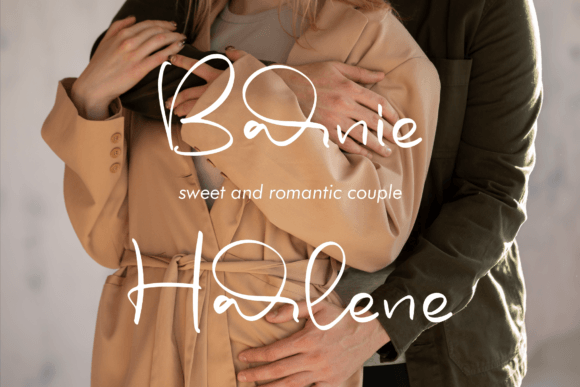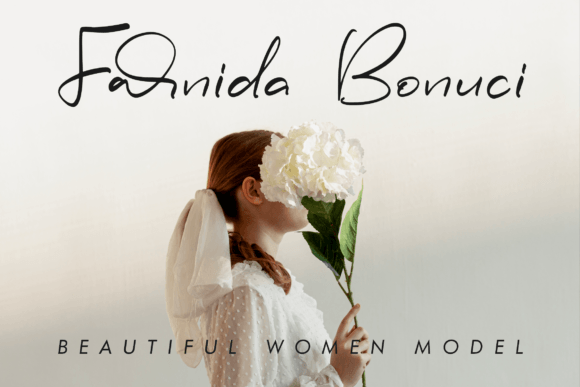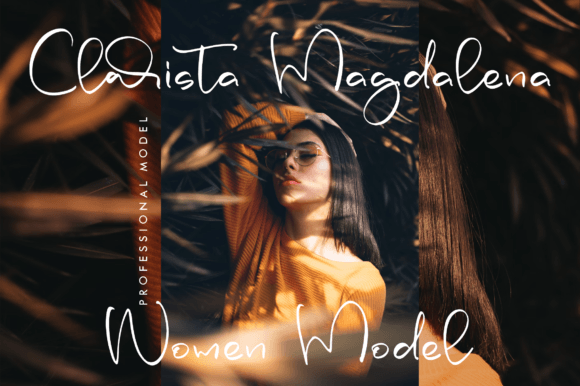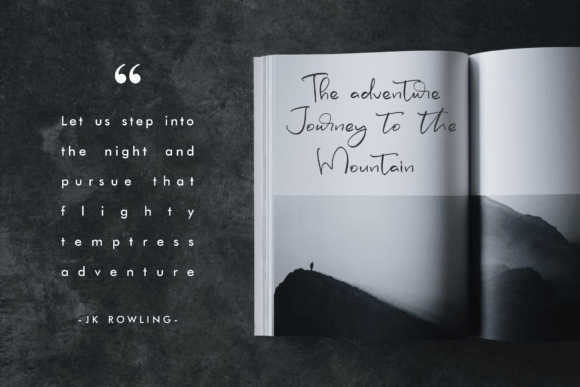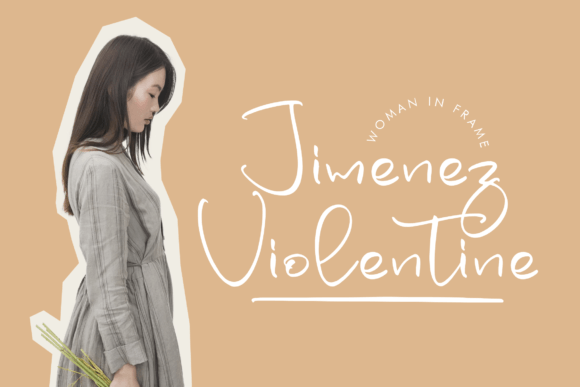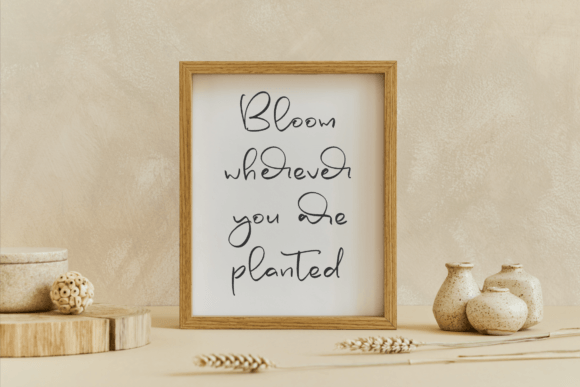
Introducing Darlista Goliath Font: Elevate Your Designs with Elegant Script
In the world of typography, a font can make or break a design. For designers and crafters looking to add a touch of sophistication and elegance to their projects, Darlista Goliath Font is an exceptional choice. This beautiful script font combines contemporary flair with classic calligraphy inspiration, making it perfect for a wide range of creative endeavors.
What is Darlista Goliath Font?
Darlista Goliath is an elegant script font that strikes the perfect balance between modernity and timelessness. Its design draws inspiration from classic calligraphy, yet it boasts a contemporary atmosphere that will make your projects stand out. The font’s creator aimed to produce a typeface that is not too thin and not too thick, resulting in a balanced and varied appearance that enhances the beauty of any text.
Key Features of Darlista Goliath Font
- Elegant and Sophisticated: Darlista Goliath’s script style exudes elegance and sophistication, making it ideal for designs that require a high level of refinement.
- Contemporary Atmosphere: Despite its classic inspiration, this font has a distinctly modern feel that will appeal to designers looking for something fresh and current.
- Balanced and Varied: The font’s balanced stroke widths and varied letterforms ensure that your text will be visually appealing and engaging.
- Impeccable Form: Darlista Goliath’s impeccable form makes it suitable for a wide range of applications, from branding and advertising to packaging and editorial design.
Who Can Benefit from Darlista Goliath Font?
Darlista Goliath Font is a versatile typeface that can benefit a wide range of designers and crafters, including:
- Graphic Designers: Looking for a sophisticated script font to elevate their branding, advertising, and marketing materials.
- Digital Artists: Seeking a elegant and modern font to use in their digital art, illustrations, and mixed media projects.
- Crafters: Creating handmade cards, invitations, and other paper crafts that require a touch of elegance and sophistication.
- Web Designers: Needing a beautiful script font to enhance the typography on their websites and blogs.
Tips for Using Darlista Goliath Font
To get the most out of Darlista Goliath Font, consider the following tips:
- Pair with a Simple Font: Combine Darlista Goliath with a simple, sans-serif font to create a striking contrast and add visual interest to your design.
- Use for Headings and Titles: Take advantage of the font’s elegant and sophisticated style by using it for headings, titles, and other display text.
- Experiment with Colors: Try pairing Darlista Goliath with different colors and textures to add depth and dimension to your design.
Darlista Goliath Font is a stunning script font that offers a unique blend of elegance, sophistication, and modernity. With its impeccable form, balanced and varied appearance, and contemporary atmosphere, this font is sure to elevate the beauty of your projects. Whether you’re a designer, crafter, or digital artist, Darlista Goliath is an excellent choice for anyone looking to add a touch of refinement and style to their work.